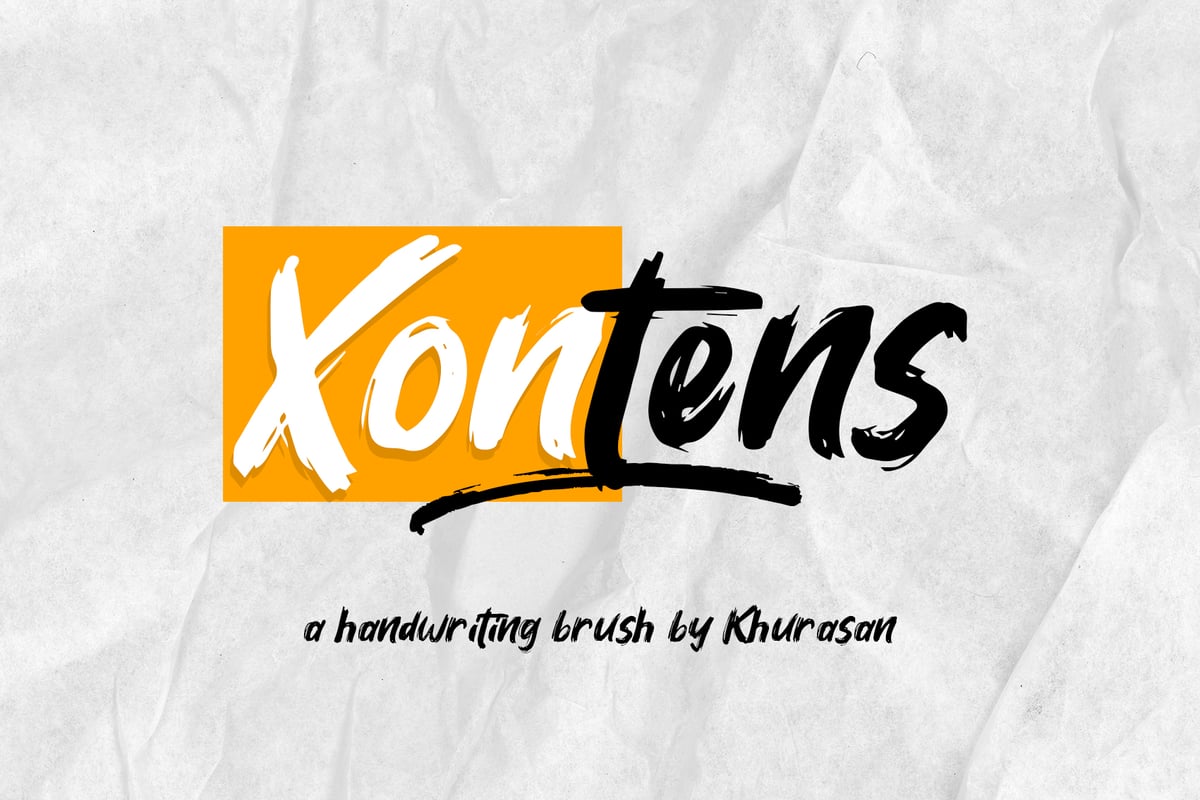
Xontens Brush Font
Xontens delivers fresh handwritten brush elegance with vintage character perfect for standout branding and design projects. This distinctive brush font combines handcrafted authenticity with refined elegance, making it ideal for projects that need both personality and sophistication. The vintage-inspired character set brings warmth and charm to any design application. Complete typography package includes: Full uppercase and lowercase letter sets Multi-lingual language support Currency symbols an...